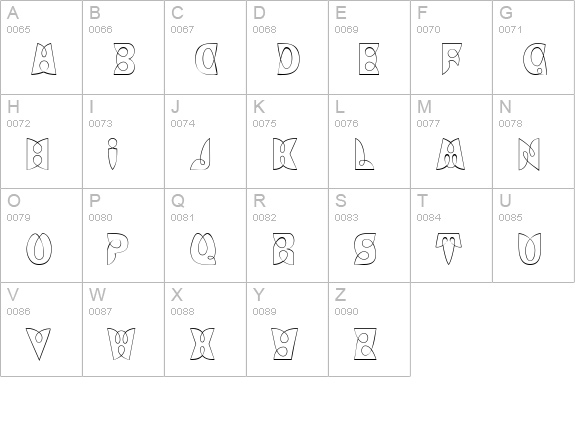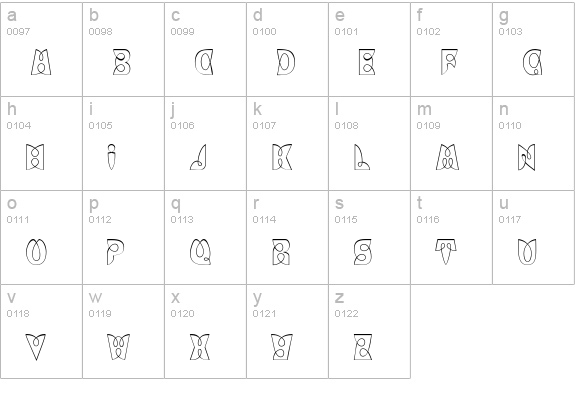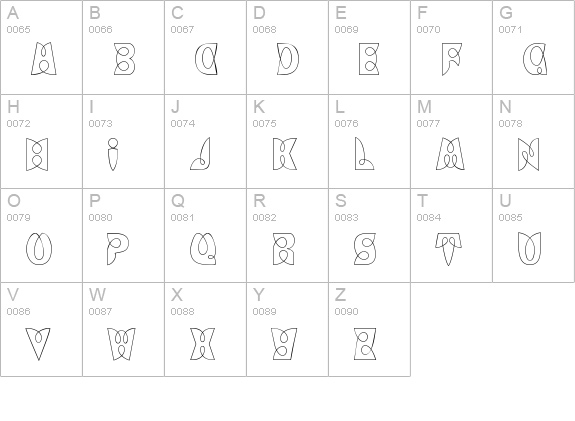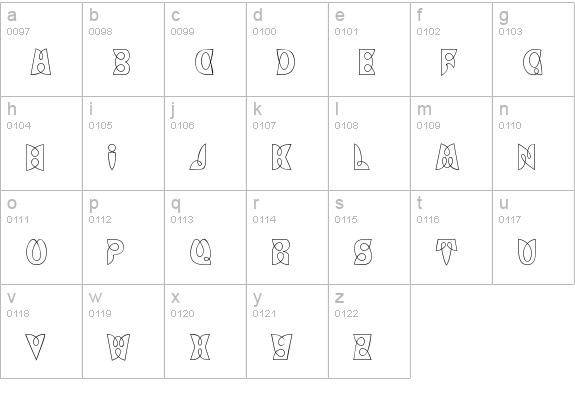
BrashCapsOutline Font Details
BrashCapsOutline is a bold and dynamic font that exudes confidence and modernity. With its striking outline design, this font is perfect for making a statement in your designs. Whether you're working on posters, logos, headlines, or any other creative project, BrashCapsOutline will command attention and leave a lasting impression. The best part? BrashCapsOutline is completely free to download at FontsMarket.com. This means you can enjoy all the eye-catching features of this font without having to spend a penny. So why wait? Elevate your designs with BrashCapsOutline today and let your creativity shine!